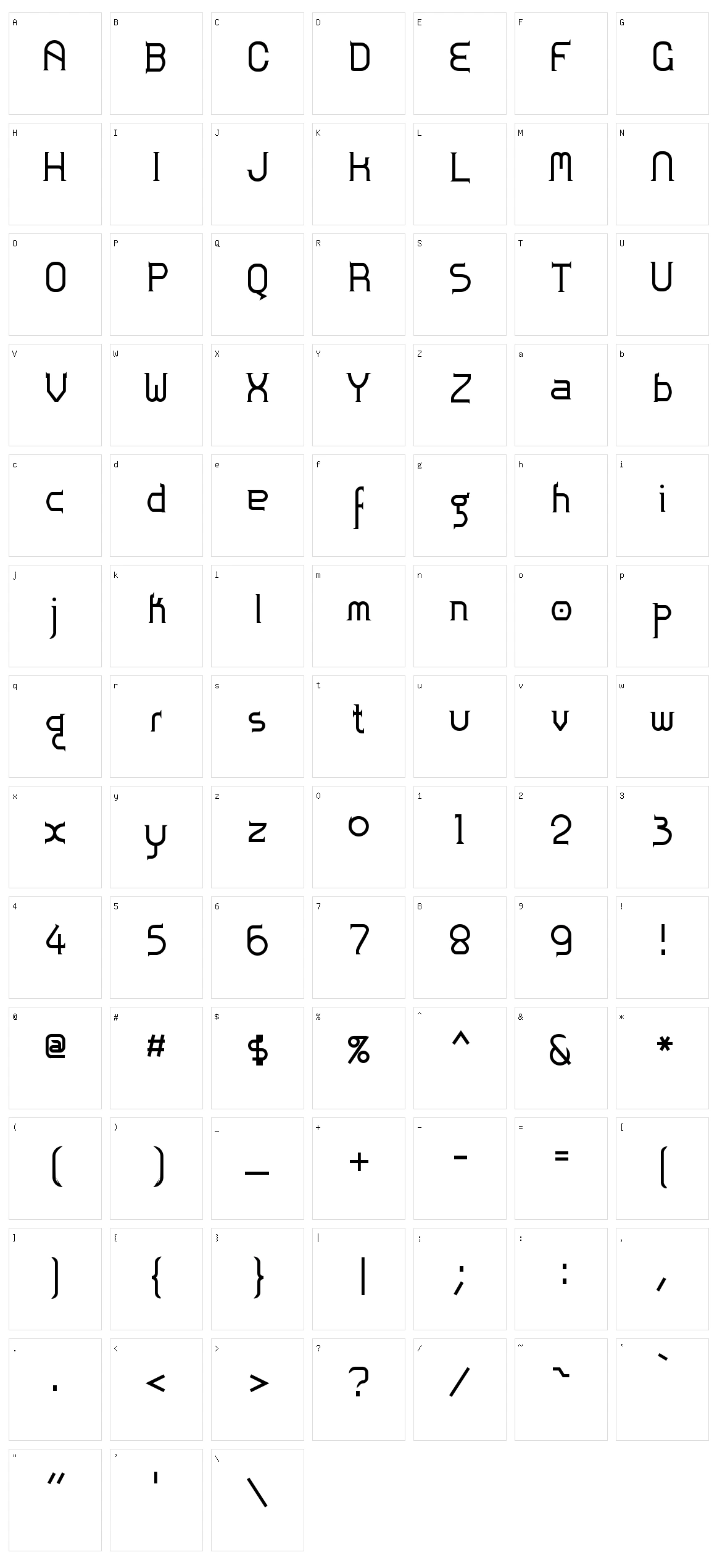
Zoloft
Designed by: Apostrophic Labs
Starting at www.mentalhealth.com can be quite the trip. Looking at the stats
is depressing and gives you the urge to seek therapy. Maybe one day. My
neighbour, old Hakim, once told me: "There comes a point in everyone's
life - and it's coming for you, make no mistake about it - when one just
can't live with oneself. When that point comes, people usually ask others to
change them. When they're too difficult to change, the only logical
progression is to find solace in chemistry." Well, I realize that the dirty
old man was saying all this only to justify his weird tea habit, but I think
that there is some truth in what he says. What happens when one cannot live
with oneself?
www.mentalhealth.com can serve as the start of an answer. But be careful.
Always read the small print.
Too bad Prozac is already taken. I would have gladly added it to my pill
series. Barnbrook should be sued for that. Then I should be sued for taking
pill names and so nonchalently slapping them on fonts.
One pill a day, keeps reality at bay.
Grope for one.